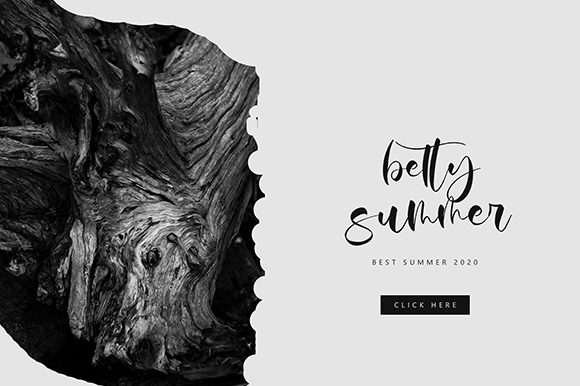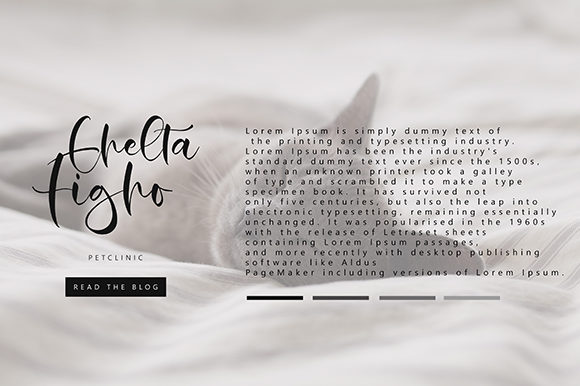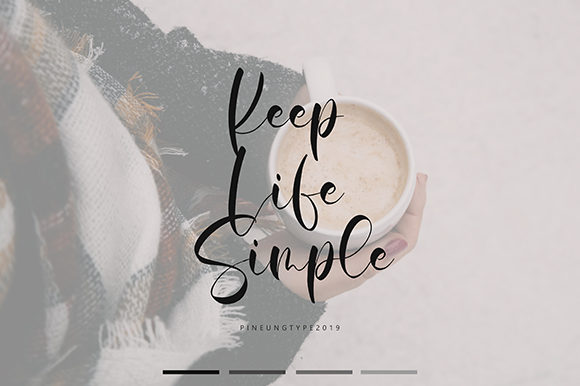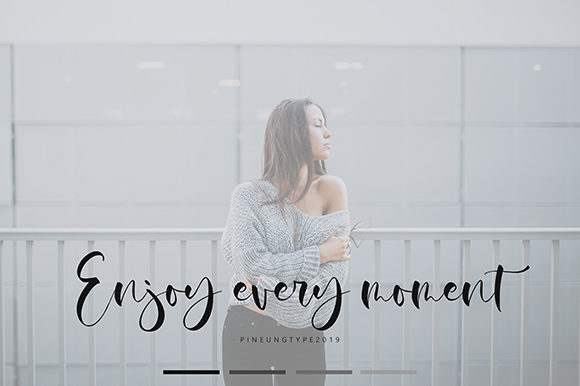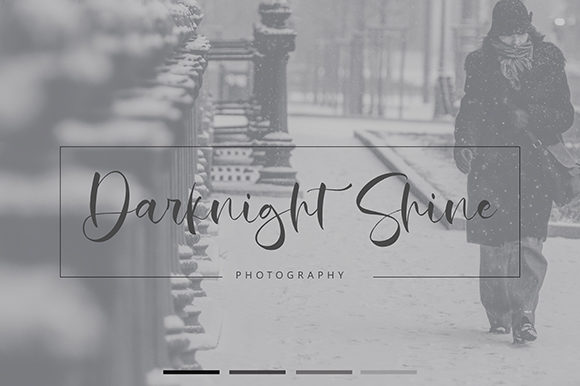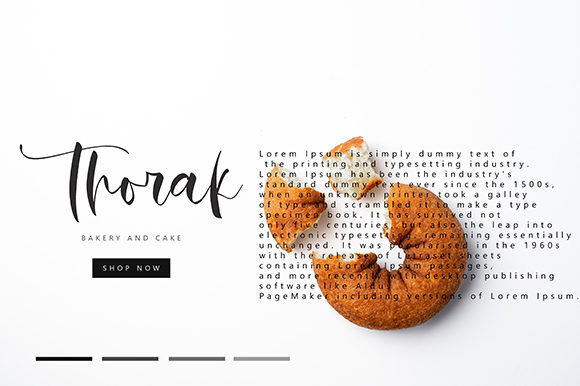
Discovering the Magic of Sambyttha Font
Have you ever found yourself stuck in a design rut, searching for that perfect font to bring your creative project to life? I know I have. It’s like trying to find a needle in a haystack, until suddenly, you stumble upon something that makes your heart skip a beat. For me, that moment came when I discovered the Sambyttha Font.
| 👤 Author | Pineungtype & Missinklab |
With its unique and organic charm, the Sambyttha Font is a game-changer for designers looking to add a touch of personality to their work. Whether you’re working on a high-quality design project or need a free download to spice up your social media graphics, this font is a valuable resource that’s sure to impress. And the best part? It’s available for free download, making it a must-have for any design enthusiast.
What Makes the Sambyttha Font So Special?
Key Features of Sambyttha Font
- High-quality, free download font perfect for creative projects, offering a unique and stylish design resource.
- Includes a transparent background, allowing for effortless background removal and customization.
- Designed with a modern aesthetic, making it ideal for contemporary design projects, including digital art, graphic design, and more.
- Features a large character set, including uppercase and lowercase letters, numbers, and punctuation marks, ensuring comprehensive coverage for your creative project.
- Resolution-independent design ensures crisp and clear rendering at various sizes, from small to large scale applications.
Honest Review: Sambyttha Font
I recently had the opportunity to work with the Sambyttha Font, and I must say it’s been a game-changer for my high-quality creative projects. The moment I downloaded the font, I knew I was in for a treat. It’s clear that the designers behind this font have put in the extra effort to make it a valuable design resource.
- ✨ The font’s unique design elements and intricate details make it perfect for adding a touch of sophistication to any project.
- ✨ The transparent background feature is incredibly useful for creating seamless compositing effects in graphic design.
While the Sambyttha Font is an excellent addition to any designer’s toolkit, there are a few limitations to consider:
- ⚠️ The font may not be suitable for use in large blocks of text, as it can be quite difficult to read at smaller sizes.
- ⚠️ The intricate details in the font may not be easily readable in low-resolution displays.
Overall, I’m thoroughly impressed with the Sambyttha Font. Its unique design and transparent background feature make it a valuable resource for designers working on high-quality creative projects. If you’re looking for a reliable and free design resource, I highly recommend giving the Sambyttha Font a try.
The Sambyttha Font is a versatile and high-quality design resource ideal for creative projects that require a unique touch. This font is available for free download and features a transparent background, making it easy to incorporate into various design elements.
To get the most out of the Sambyttha Font, experiment with different font sizes and styles to achieve the desired visual effect. You can also use the font in combination with other design elements to create a unique and eye-catching design.
The Sambyttha Font is suitable for a wide range of creative projects, including branding, marketing materials, and digital products. Its transparent background makes it easy to incorporate into various design elements, such as logos, icons, and graphics.
Does the Sambyttha Font have a transparent background?
Yes, the Sambyttha Font features a transparent background, making it an ideal choice for designers who need to create visually appealing graphics with a seamless background. This allows for greater flexibility and creativity when designing with the Sambyttha Font.